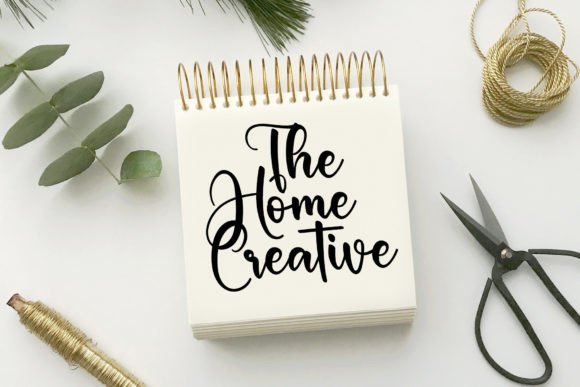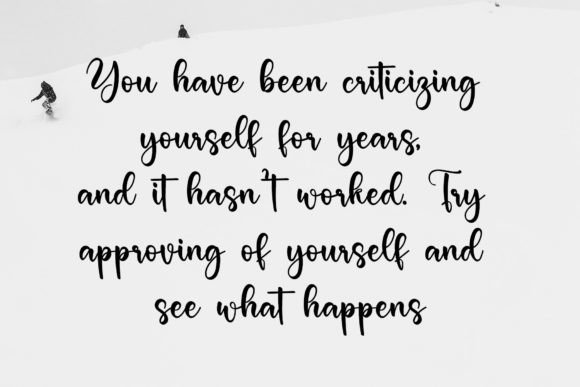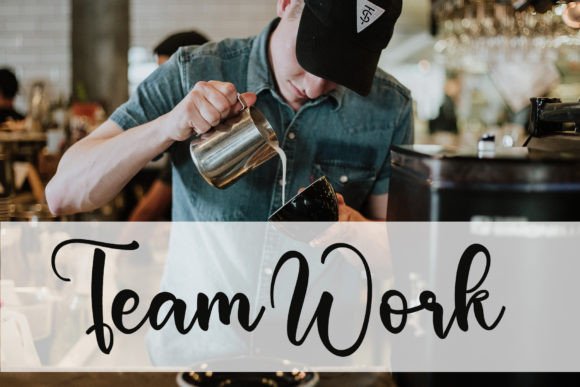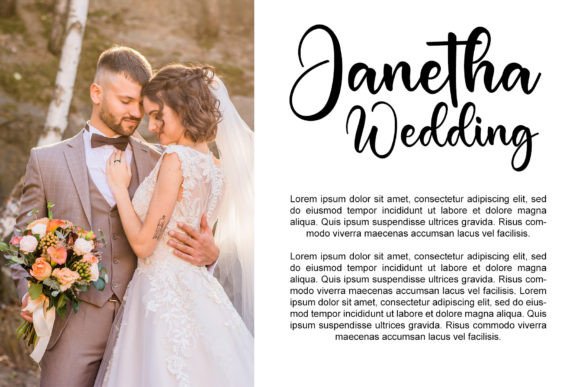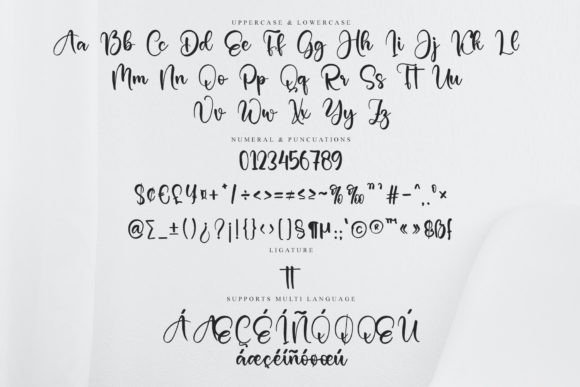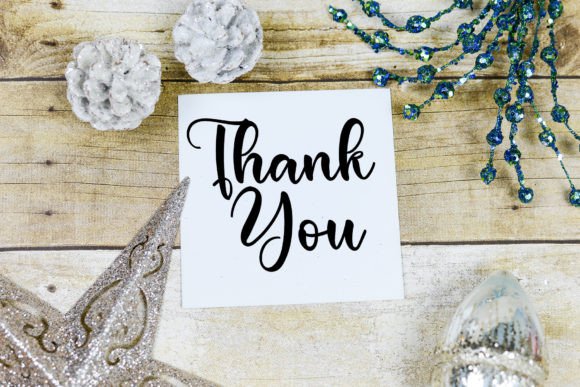
Introducing Handing Font: The Ultimate Script Font for Your Creative Projects
Are you a designer or crafter looking for a stylish and dainty script font to elevate your creative projects? Look no further than Handing Font! This beautiful script font is perfect for a wide range of applications, from logos and branding projects to labels, photography, watermarks, and special events. With its elegant and refined aesthetic, Handing Font is sure to add a touch of sophistication and glamour to any project.
What Makes Handing Font So Special?
Handing Font is a PUA (Private Use Area) encoded font, which means that you can access all of the glyphs and swashes with ease. This makes it incredibly versatile and flexible, allowing you to use it for a wide range of creative applications. Whether you’re looking to create a beautiful logo, a stunning watermark, or a gorgeous label, Handing Font has got you covered.
Key Features of Handing Font
- Stylish and Dainty Script Font: Handing Font is a beautifully designed script font that is both stylish and dainty. Its elegant aesthetic makes it perfect for projects that require a touch of sophistication and glamour.
- PUA Encoded: As a PUA encoded font, Handing Font gives you access to all of the glyphs and swashes, making it incredibly versatile and flexible.
- Suitable for a Wide Range of Projects: From logos and branding projects to labels, photography, watermarks, and special events, Handing Font is perfect for any project that requires a beautiful script taste.
- Easy to Use: With its user-friendly design, Handing Font is easy to use and customize, making it perfect for designers and crafters of all levels.
Inspiration for Your Next Project
Need some inspiration for your next project? Here are a few ideas to get you started:
- Logo Design: Use Handing Font to create a beautiful and elegant logo for your business or brand.
- Branding Projects: Add a touch of sophistication and glamour to your branding projects with Handing Font.
- Labels and Packaging: Use Handing Font to create stunning labels and packaging for your products.
- Photography: Add a touch of elegance to your photographs with Handing Font.
- Special Events: Use Handing Font to create beautiful invitations, programs, and other materials for your special events.